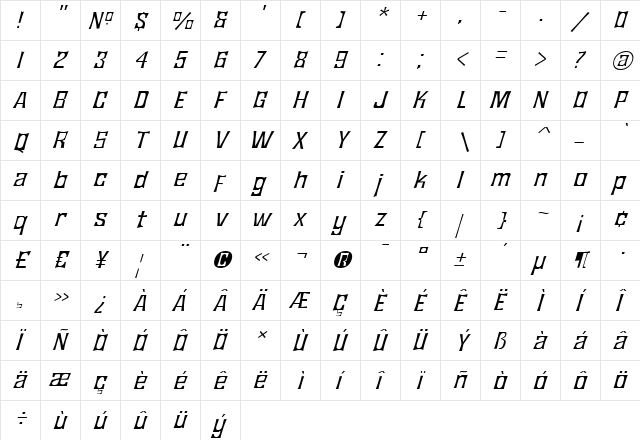
JMH Bronze Fine Italic
Design Context for JMH Bronze Fine Typeface
JMH Bronze Fine offers clean, dependable letterforms without strong stylistic allegiance, making it a practical choice for designers who need flexibility. The dynamic lean of this cut emphasises speed and emphasis in any layout.